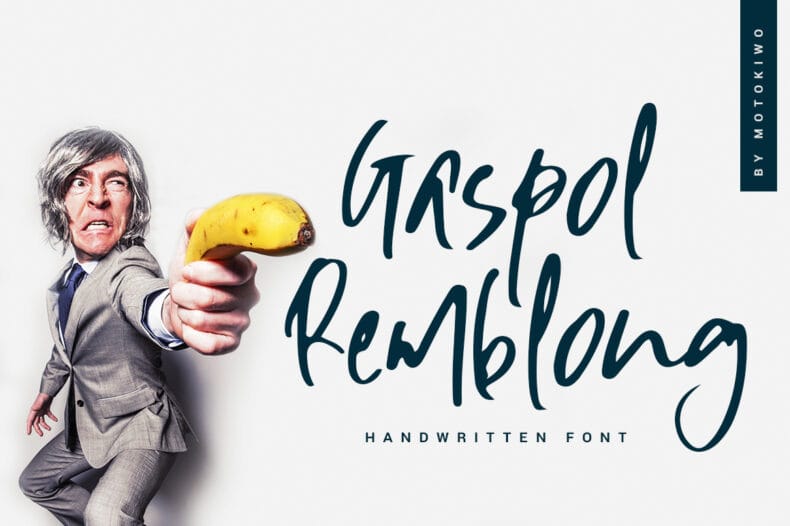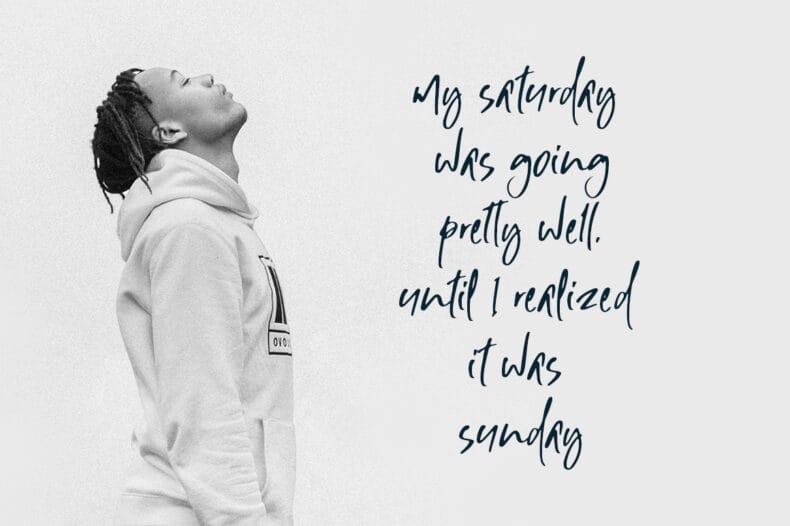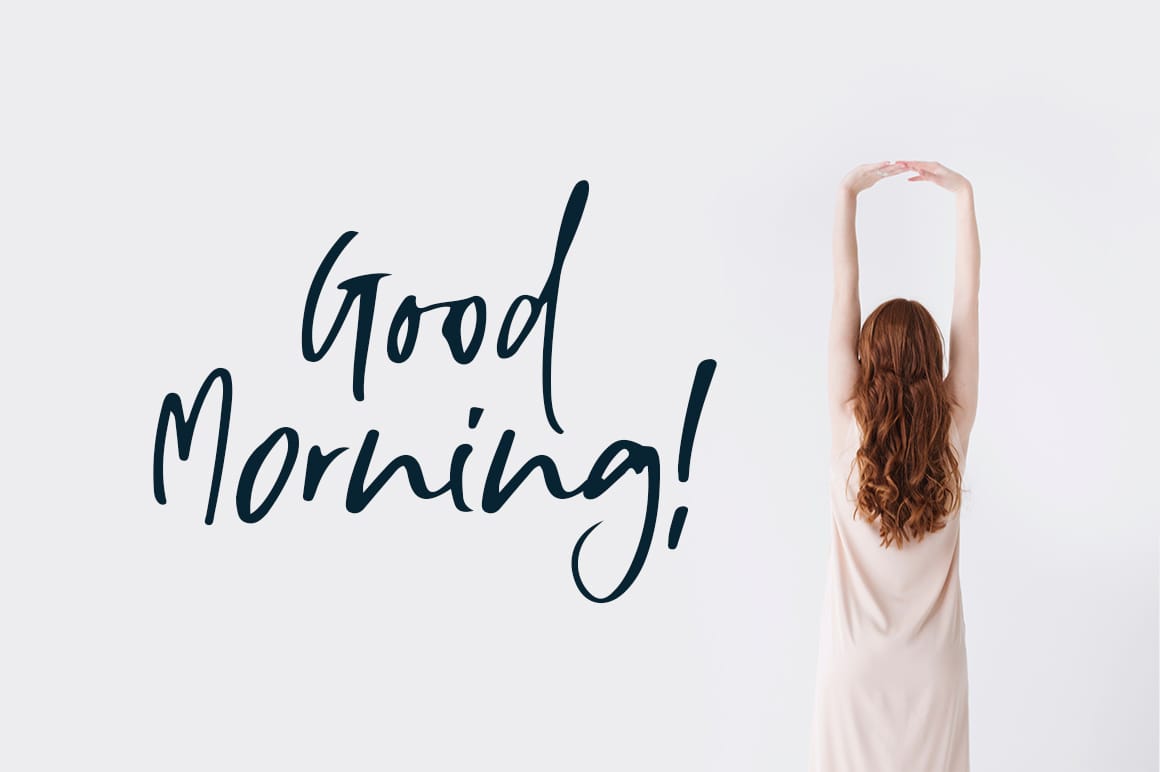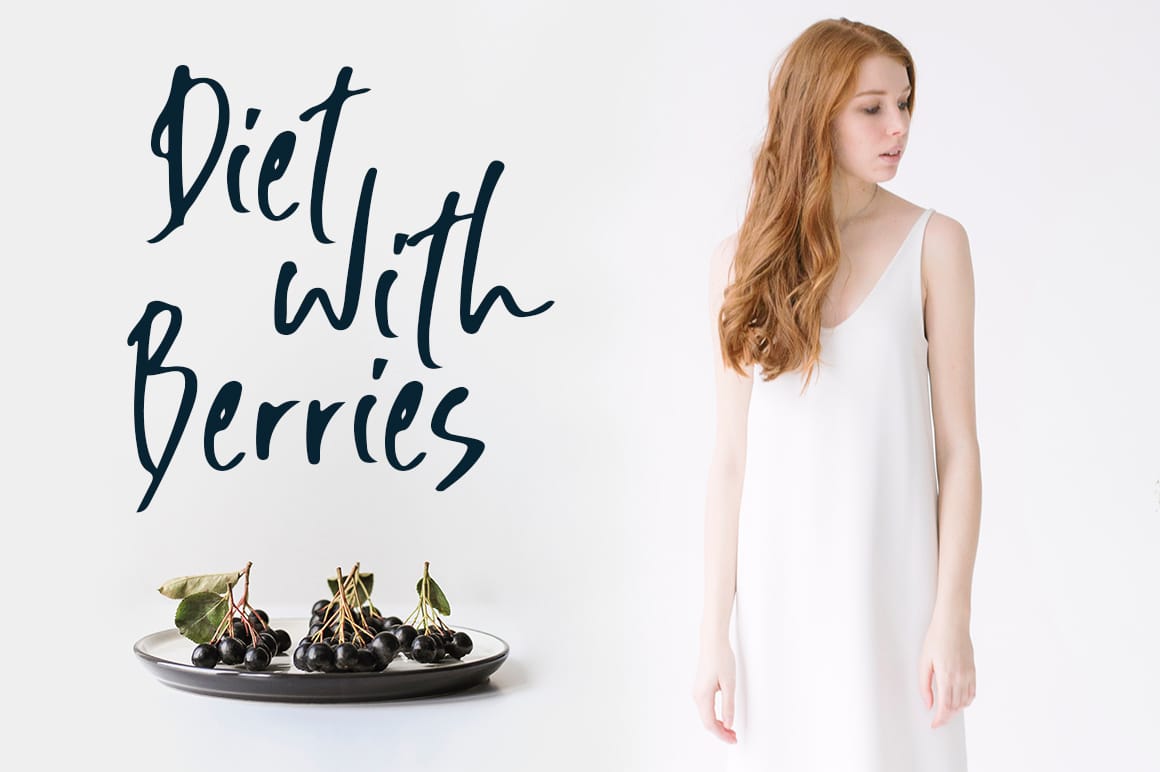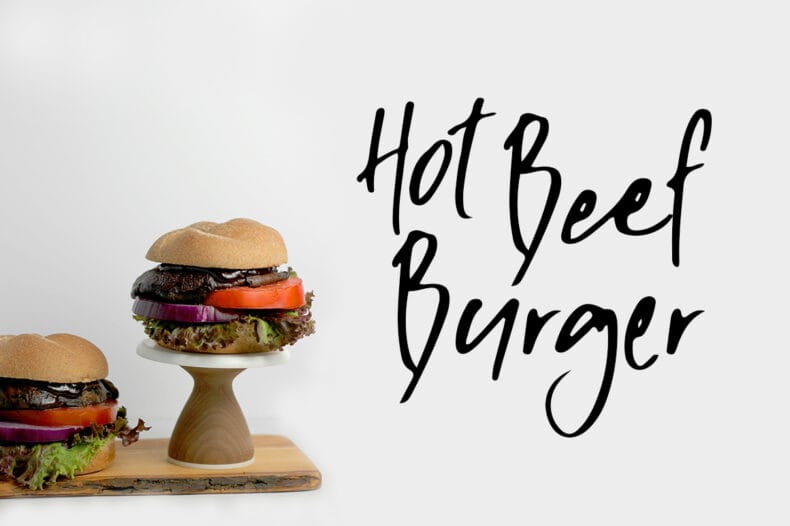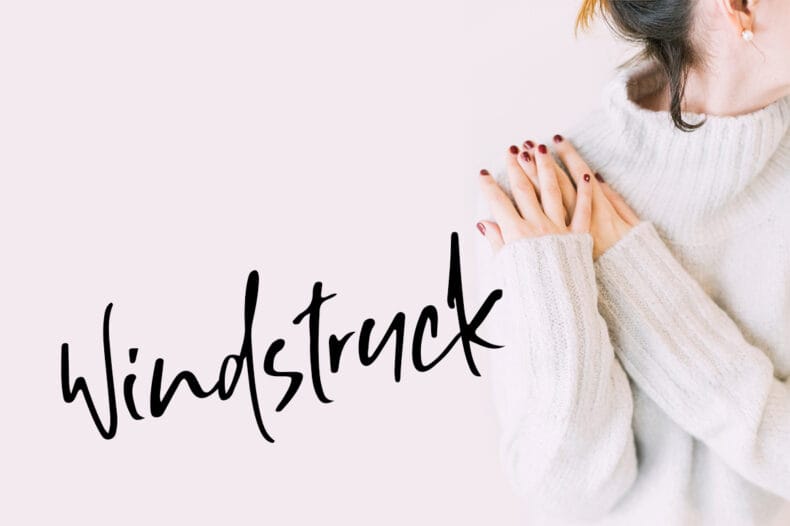
Gaspol Remblong is a natural handwritten script with a lively character and ligatures. Try it in music graphics, film-title concepts, posters, and short brand messages.
Gaspol Remblong offers a handwriting-driven direction for display text that should feel informal and expressive. Explore it for the main phrase on a poster or a short wordmark alongside supporting artwork.
The font includes uppercase and lowercase letters, numerals, punctuation, multilingual characters, and ligatures. Preview your exact text and use a simpler companion for secondary information to keep the hierarchy clear.